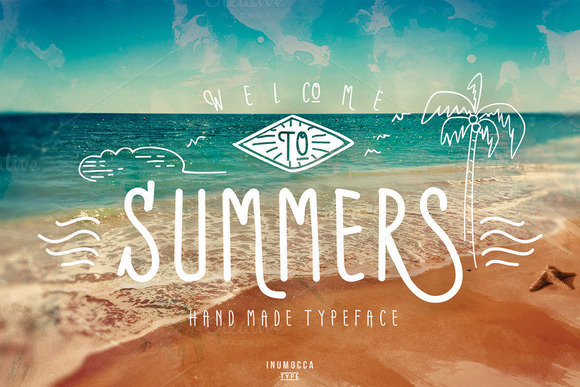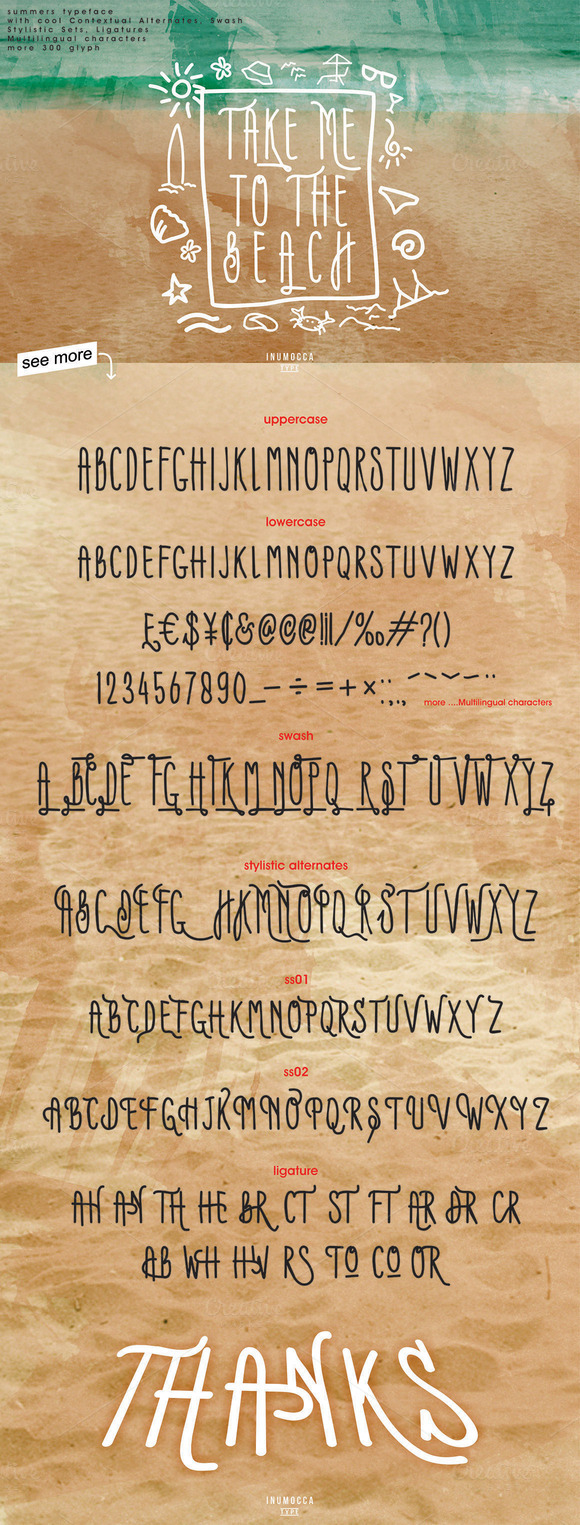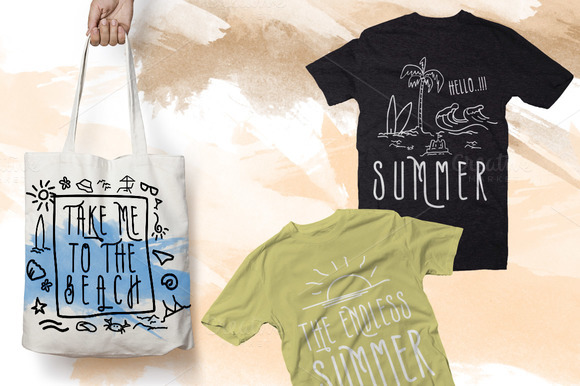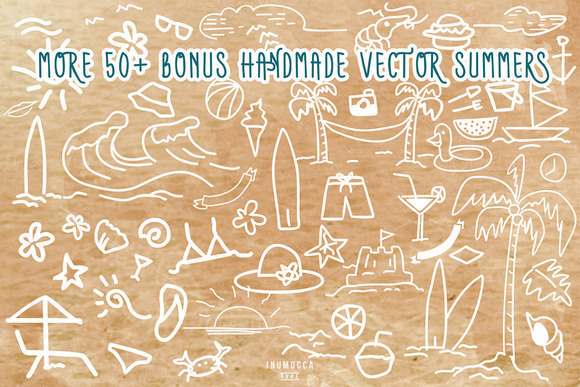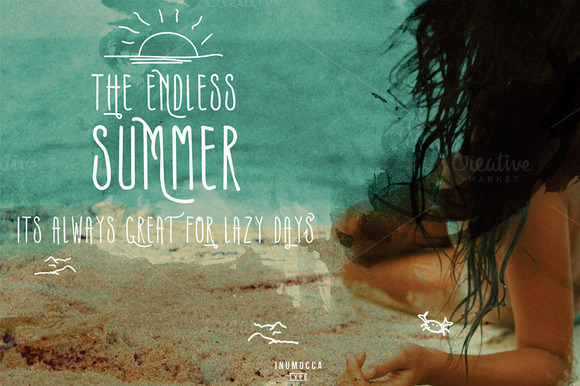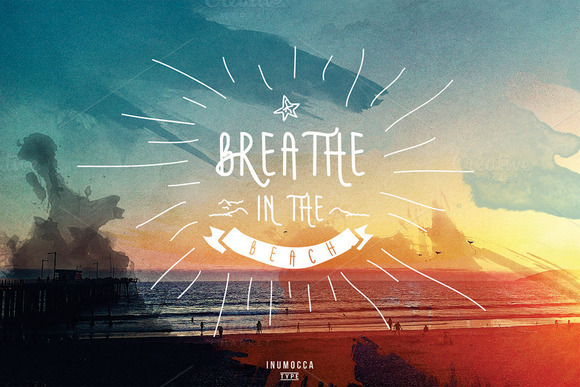
Summers Font
About Summers Font
‘Summers’ typeface is a modern and classic handmade typeface. Really beautiful for typography or to make your own quotes, brand, logos, catalogs, and much more!